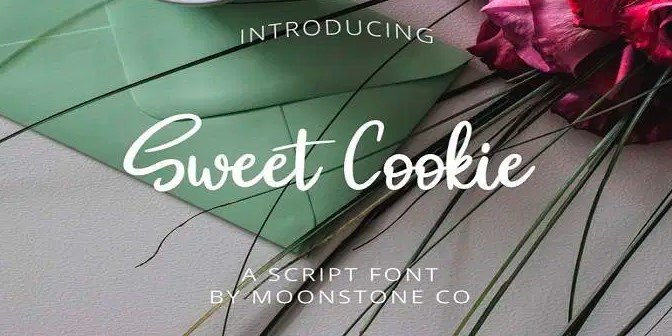
Today, we are introducing the modern and high-definition handwritten typeface known as Sweet Cookie Font, created and shared by Moonstone Co. This fantastic typeface is offered for free, allowing you to use it to make all types of projects attractive and stylish.
This font contains legible characteristics having more than 235 glyphs, ligatures, and stylistic sets. It also supports hundreds of languages that you can used in making your designs.